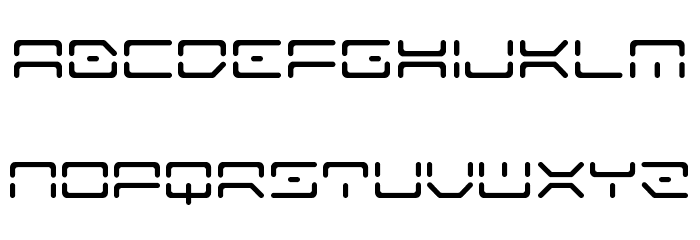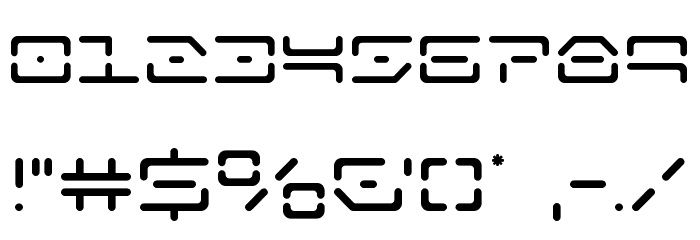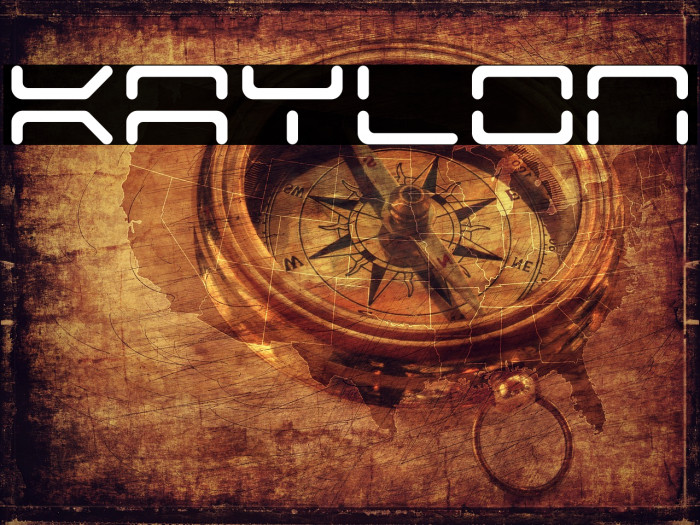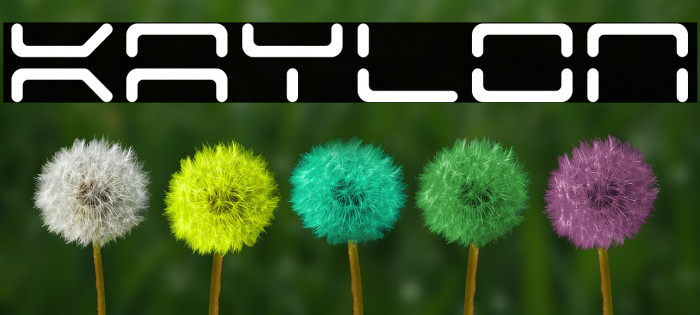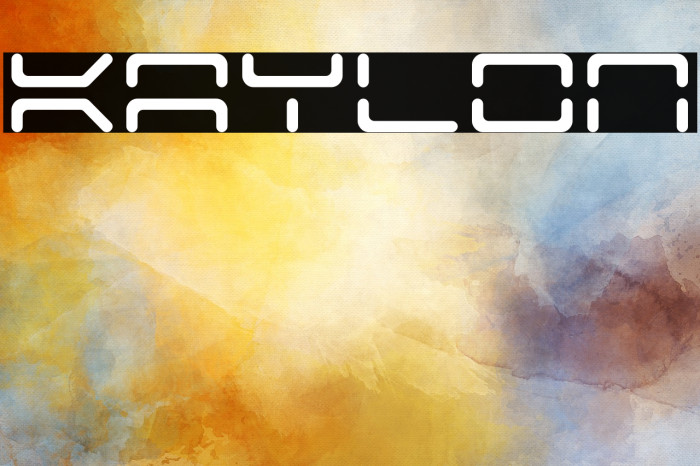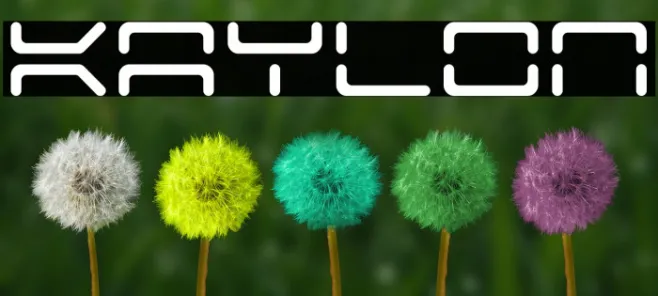
Kaylon Font
This font features a futuristic and geometric design, characterized by its rounded edges and segmented lines. Each character is composed of distinct segments that create a digital, tech-inspired appearance. The uppercase and lowercase letters maintain a consistent style, with a uniform height and width, contributing to a cohesive look. Numbers and special characters are designed with the same segmented approach, ensuring visual harmony across all glyphs. The font's unique structure makes it stand out, ideal for projects that require a modern and innovative touch.
A futuristic, segmented font with a geometric and tech-inspired design.
- Proposed Projects: Ideal for technology branding, sci-fi themed projects, digital interfaces, and modern advertising.
- Use Case: Headlines, Logos, Digital interfaces